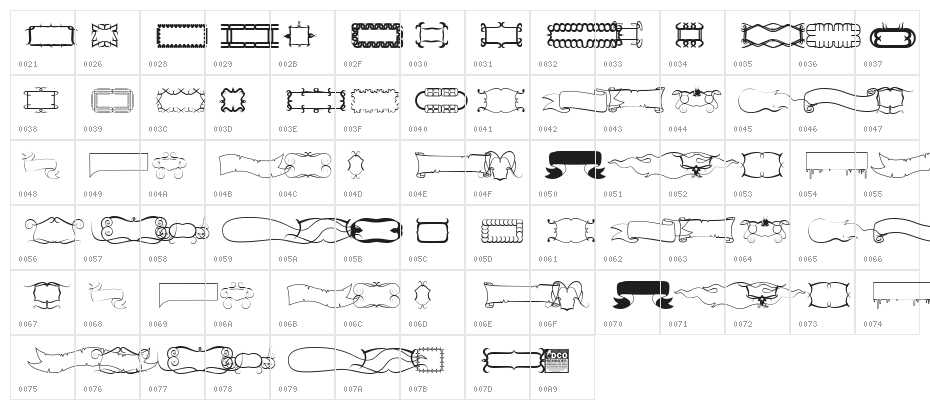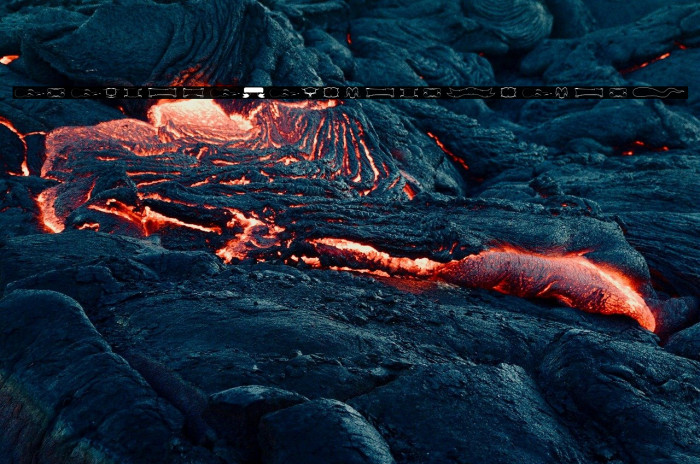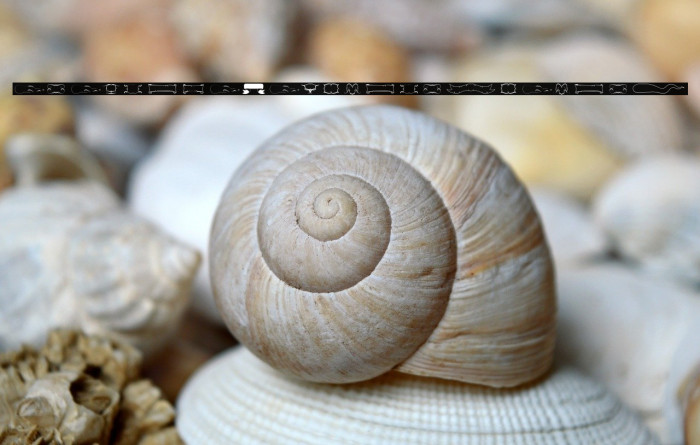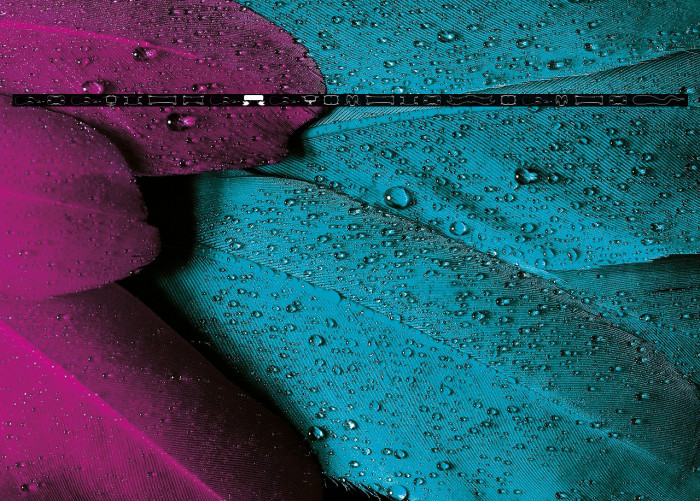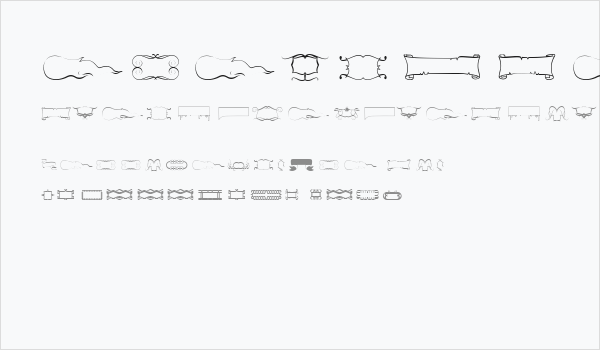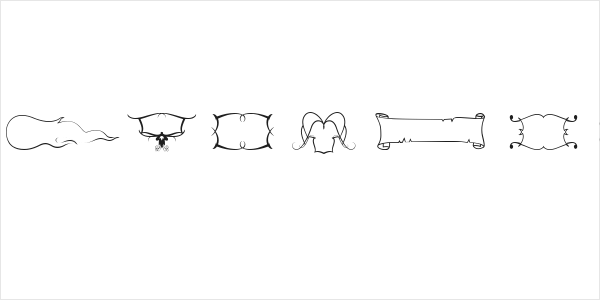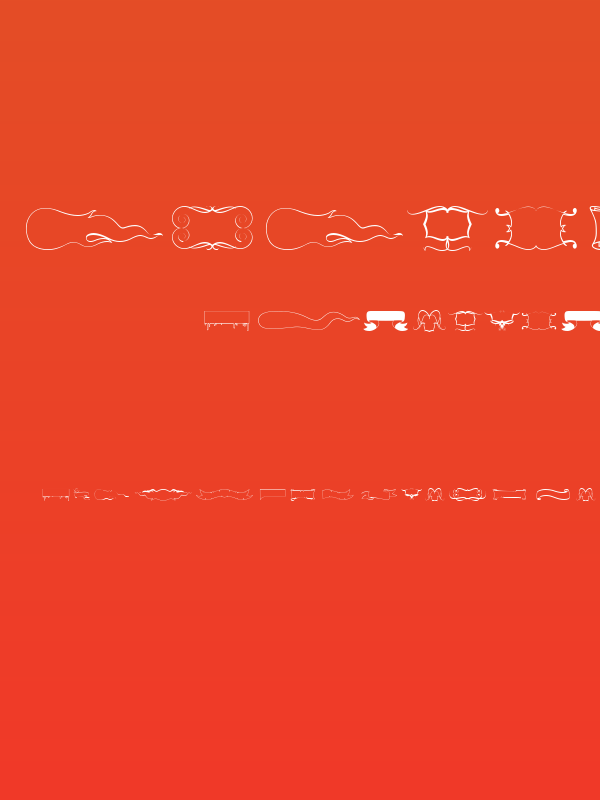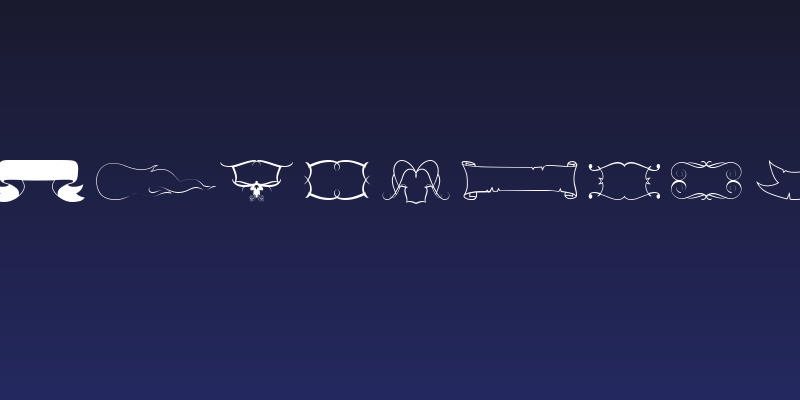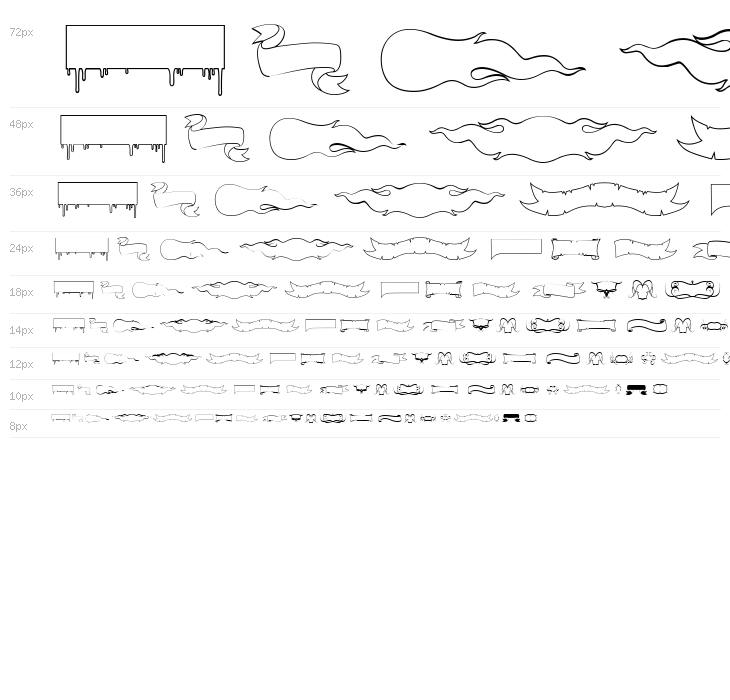
Elegance_PersonalUseOnly Font
Elegance_PersonalUseOnly Description
This is not a valid font. The image contains decorative elements or frames rather than a standard alphabetic or numeric font set. Each character appears to be a unique ornamental design, lacking the typical structure of letters or numbers. These elements are more suited for embellishments or decorative purposes rather than textual representation.
| Use Case | Decorative elements, not suitable for text. |
| Proposed Projects | These decorative elements could be used for creating borders, frames, or embellishments in graphic design projects, invitations, or scrapbooking. |